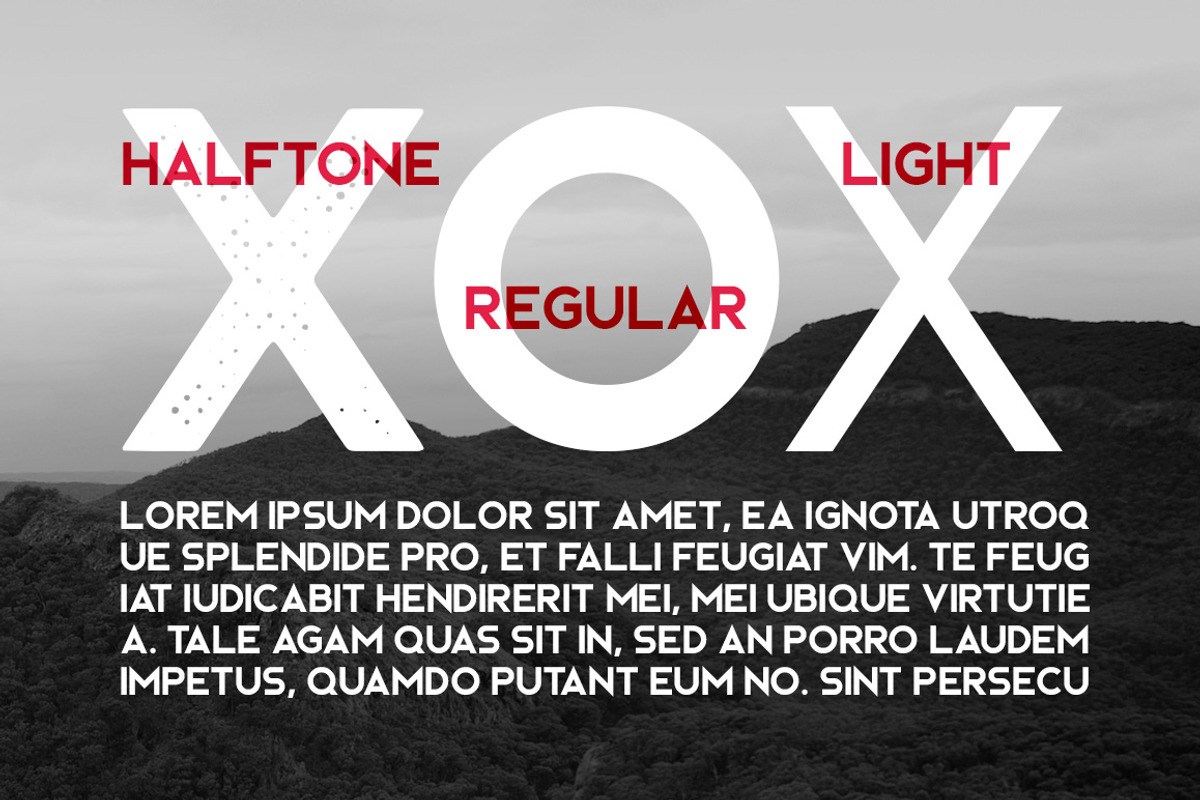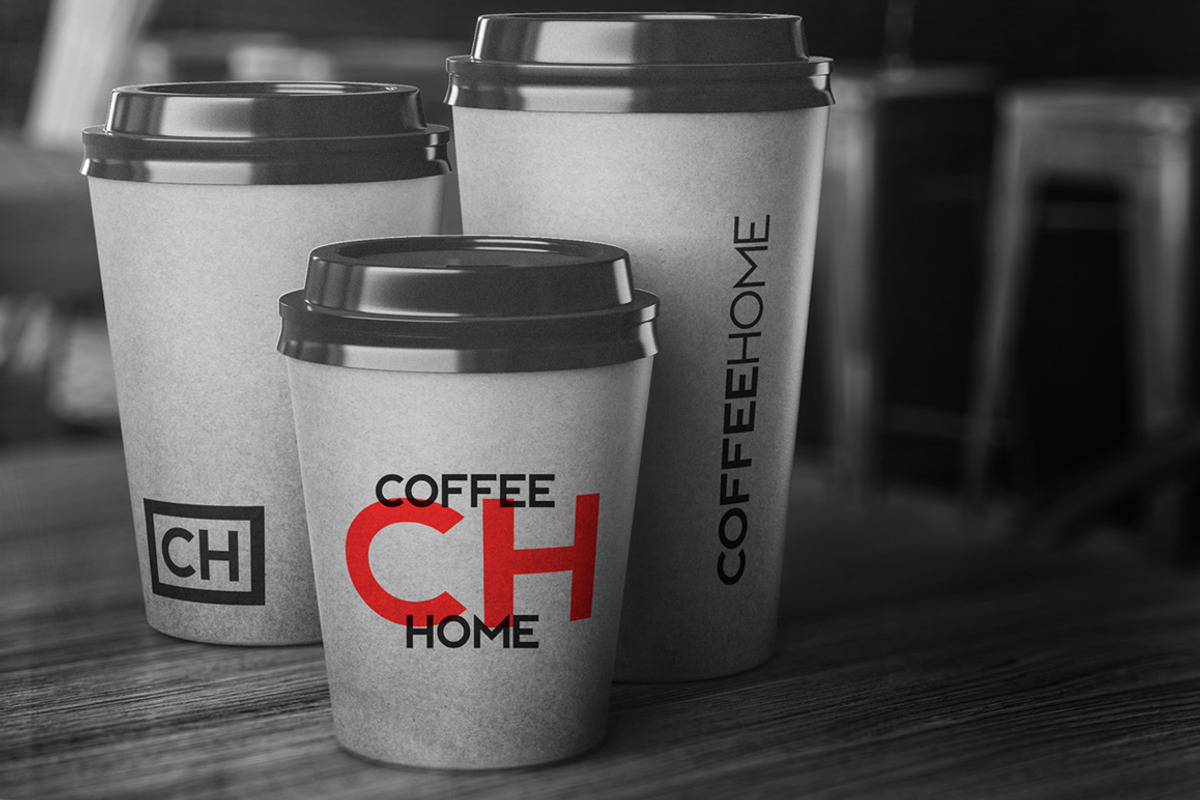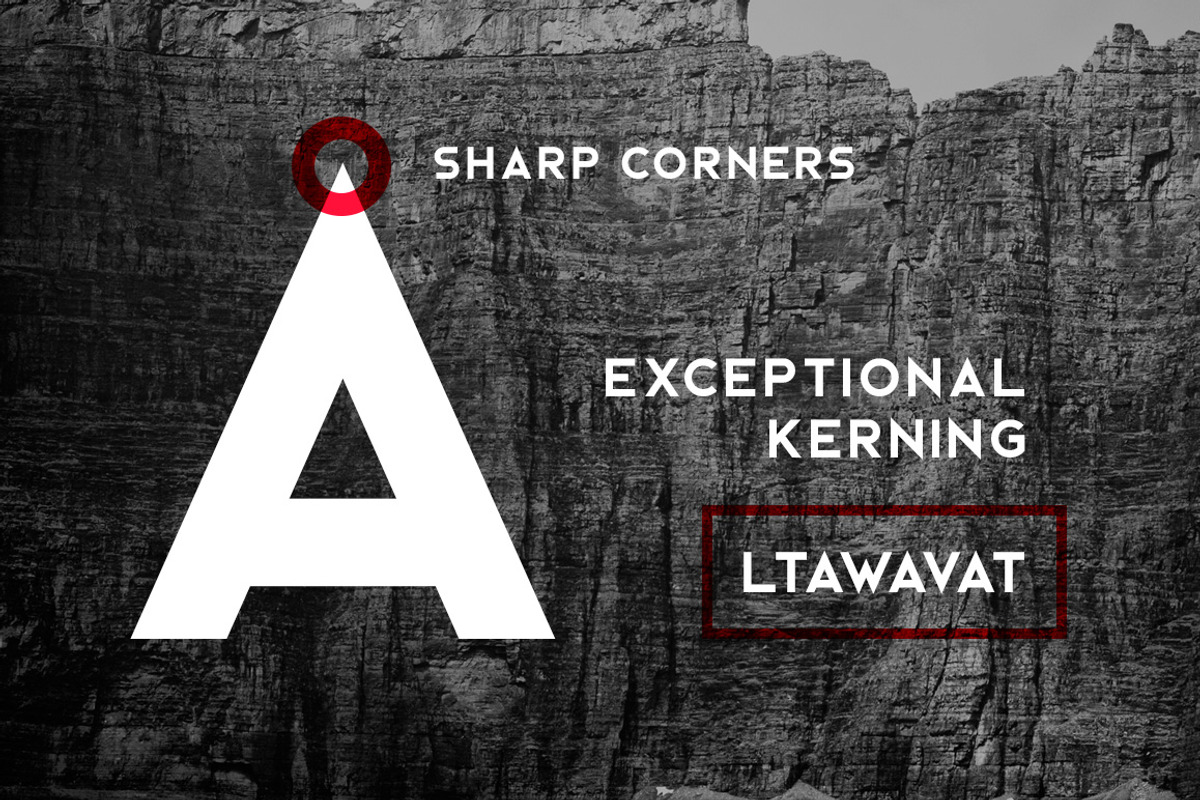
Bjorn Typeface
Bjorn Typeface by Tugcu Design Co. is a font selected for branding, posters, packaging, typography.
- Bjorn features uppercase multilingual letters, numbers and punctuation.
- Bjorn Light
- Bjorn Regular
- Bjorn Halftone
Why Bjorn Typeface is worth a look
Bjorn Typeface by Tugcu Design Co. fits naturally into Branding, posters, packaging, typography.